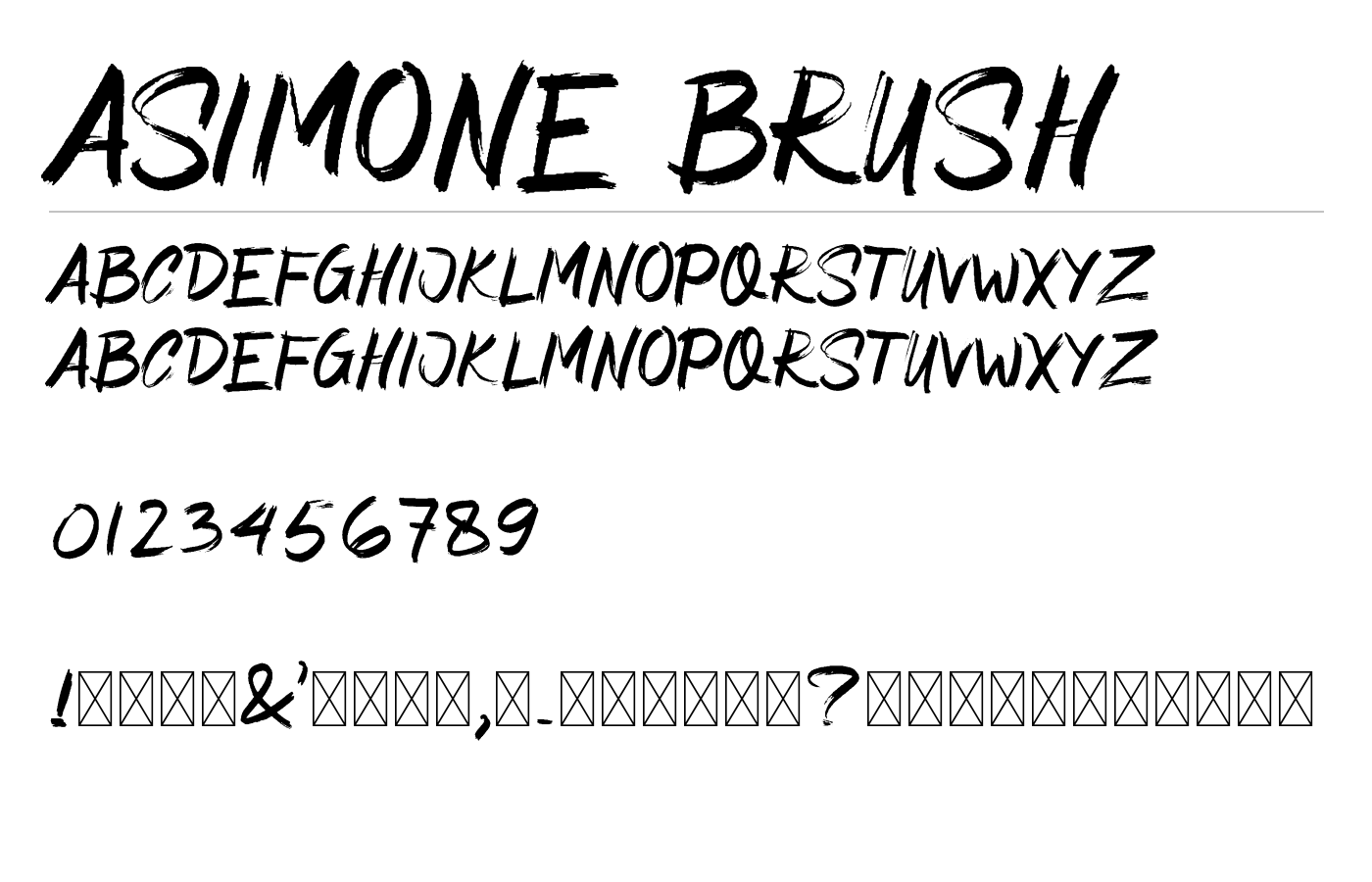
Asimone Brush is a lively, hand-drawn brush script font featuring bold, dynamic strokes with rough edges that capture genuine brush texture. Its energetic and casual style makes it perfect for creative designs, such as logos, posters, and social media content, where a personal and expressive touch is desired. This font brings an artistic, informal vibe that works especially well for brands aiming to appear approachable and vibrant.
Asimone Brush Font
About Asimone Brush Font
| Font family | Asimone Brush Font |